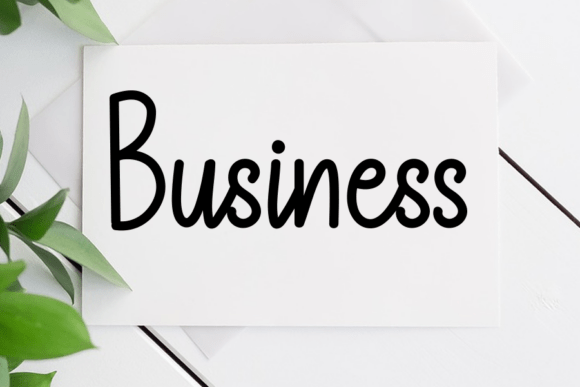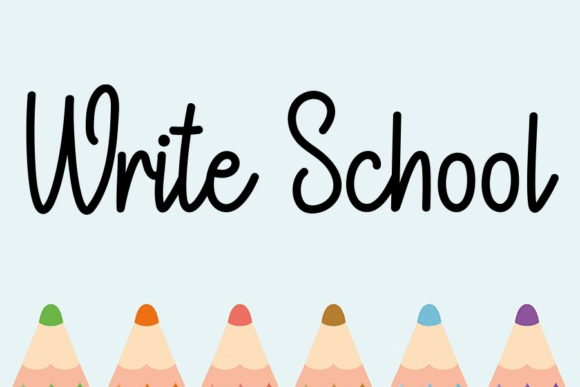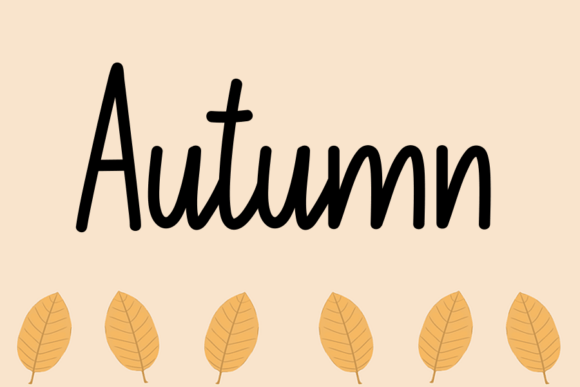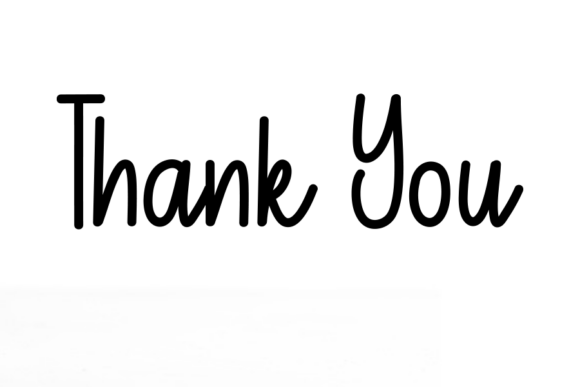
Introducing Blinking Font: The Sweet and Elegant Handwritten Font
Are you looking for a font that adds a touch of elegance and romance to your designs? Look no further than Blinking Font, a beautiful and versatile handwritten font that’s perfect for a variety of creative projects. In this article, we’ll explore the features and benefits of Blinking Font, and show you how to make the most of this gorgeous font in your designs.
What is Blinking Font?
Blinking Font is a sweet and cursive handwritten font that’s designed to add a joyful and romantic touch to your designs. With its gentle and flowing curves, this font is perfect for creating elegant and sophisticated designs that are sure to impress. Whether you’re working on a branding project, a wedding invitation, or a fashion lookbook, Blinking Font is the perfect choice.
Key Features of Blinking Font
- Handwritten elegance: Blinking Font is a carefully crafted handwritten font that mimics the look and feel of elegant handwriting.
- Cursive flow: The font features a beautiful cursive flow that’s perfect for creating long, flowing text.
- Versatile: Blinking Font is highly versatile and can be used on a variety of design projects, from branding and logos to wedding invitations and greeting cards.
- Elegant and casual: This font strikes the perfect balance between elegance and casualness, making it perfect for designs that need to look sophisticated but not too formal.
Use Cases for Blinking Font
Blinking Font is perfect for a wide range of design projects, including:
- Branding and logos: Create a beautiful and memorable brand identity with Blinking Font.
- Wedding invitations and things: Add a touch of romance and elegance to your wedding designs with this gorgeous font.
- Greeting cards: Create beautiful and heartfelt greeting cards for special occasions.
- Fashion and lookbooks: Use Blinking Font to add a touch of elegance and sophistication to your fashion designs.
- Marketing and promotion: Create eye-catching marketing materials that stand out from the crowd.
Tips for Using Blinking Font
Here are some tips for getting the most out of Blinking Font:
- Use it sparingly: While Blinking Font is beautiful, it can be overwhelming if used too much. Use it sparingly to add emphasis and create visual interest.
- Pair it with other fonts: Experiment with pairing Blinking Font with other fonts to create a unique and interesting look.
- Adjust the size and color: Play around with different sizes and colors to find the perfect combination for your design.
Blinking Font is a beautiful and versatile handwritten font that’s perfect for adding a touch of elegance and romance to your designs. With its gentle curves and flowing script, this font is sure to impress. Whether you’re a designer, crafter, or DIY enthusiast, Blinking Font is a must-have font for your design toolkit.
Blinking Font is the perfect choice for designers and crafters who want to add a touch of romance and elegance to their designs. With its versatility, elegance, and casualness, this font is sure to become a favorite in your design toolkit.